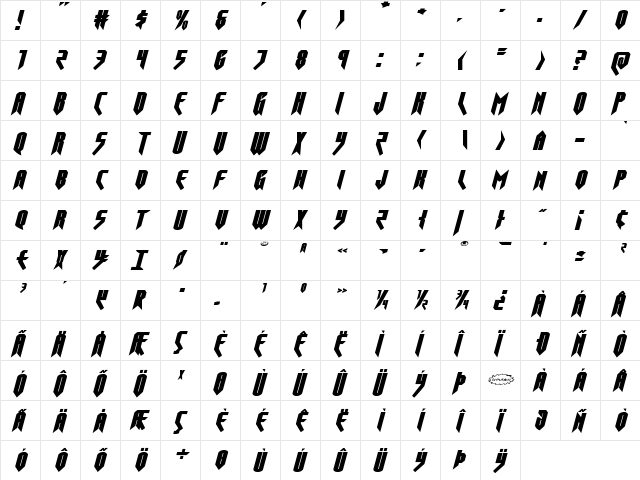
Opus Magnus Expanded Italic Expanded Italic
Design Context for Opus Magnus Expanded Italic Typeface
Opus Magnus Expanded Italic is a composed and adaptable typeface that performs quietly and consistently across a wide range of design contexts. Its italic angle brings a sense of urgency and motion to the letterforms.
Pro Tip: Use Opus Magnus Expanded Italic for emphasis, pull quotes, and subheadings where its slanted energy can add rhythm to the layout.